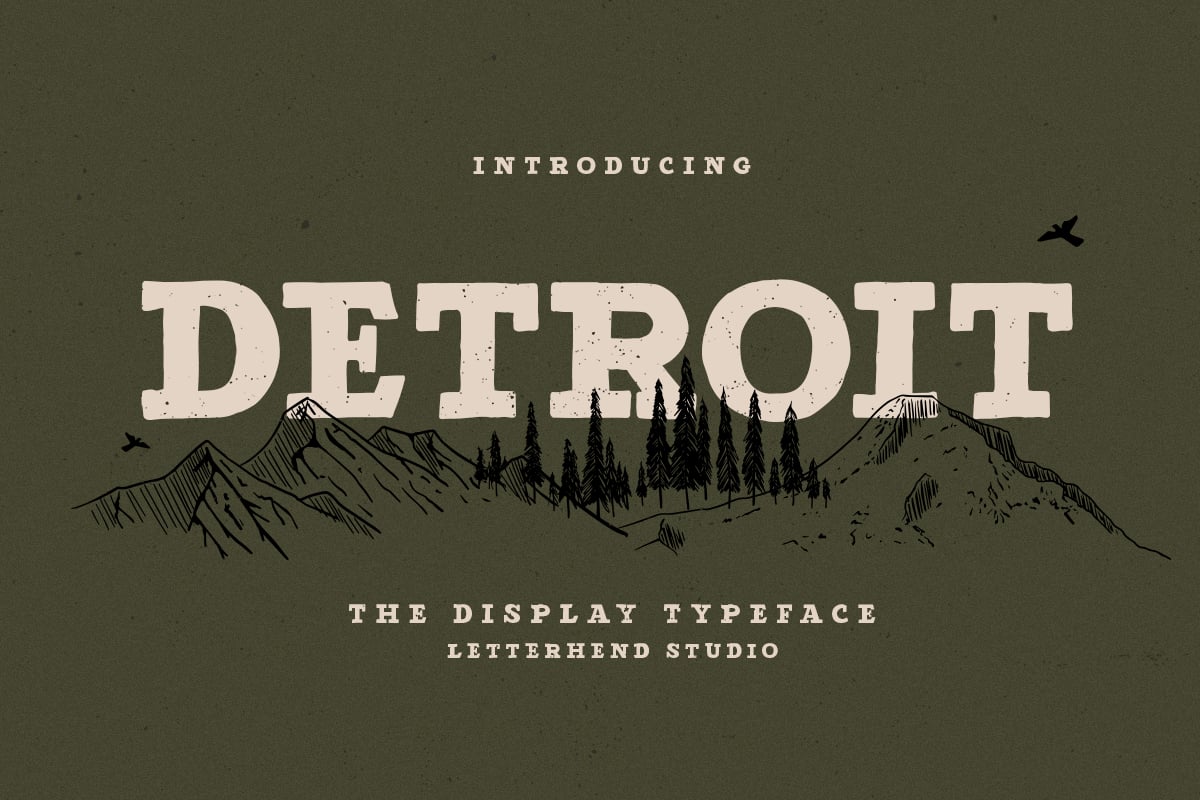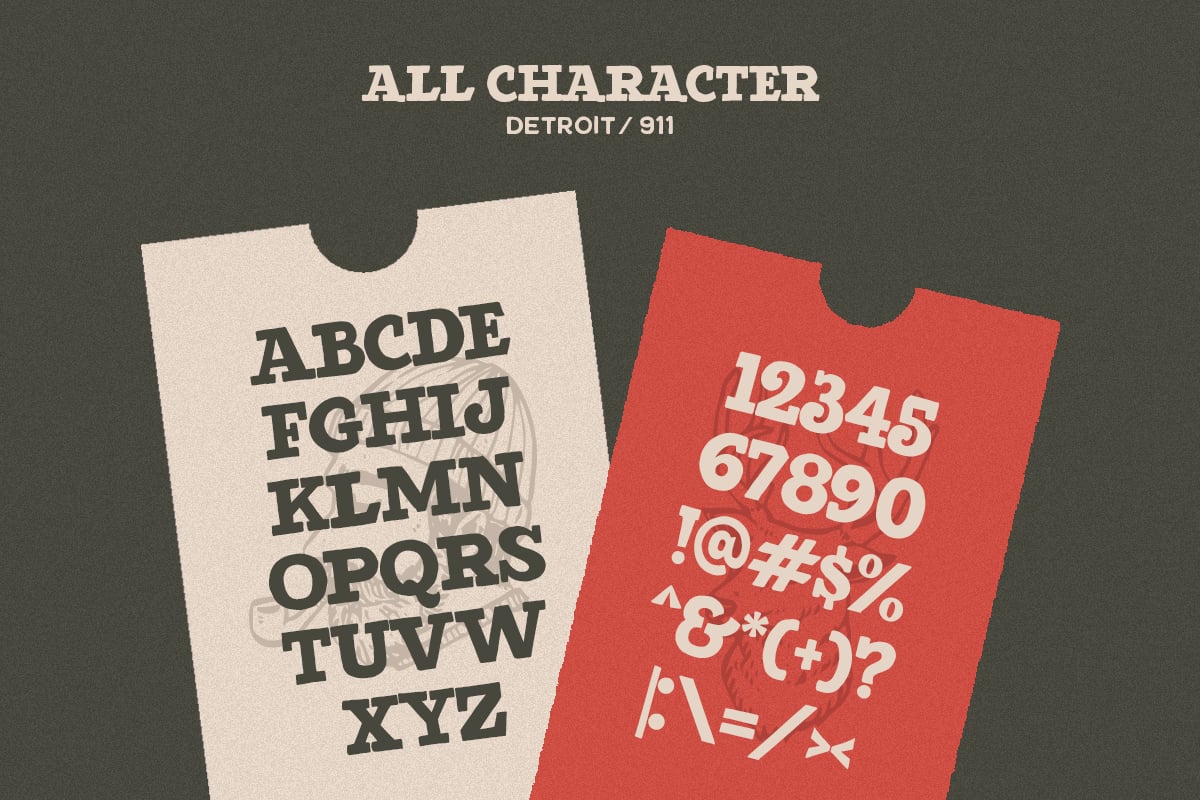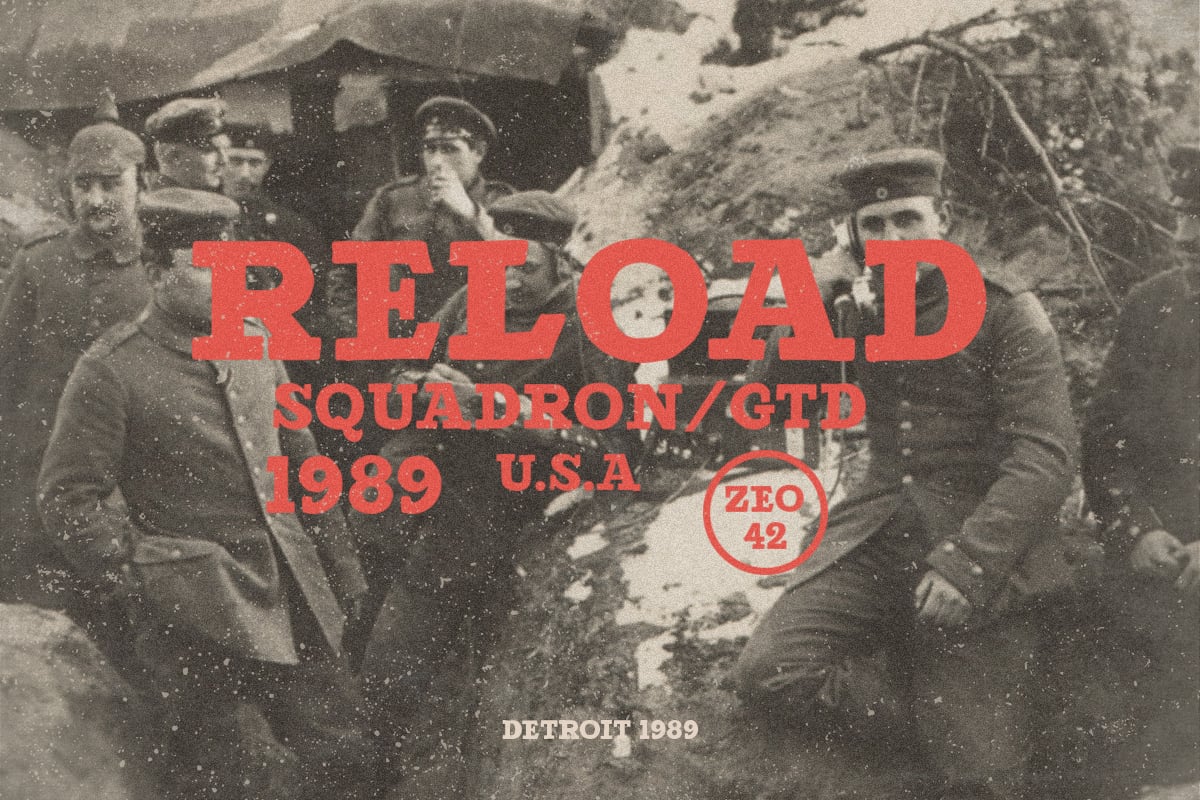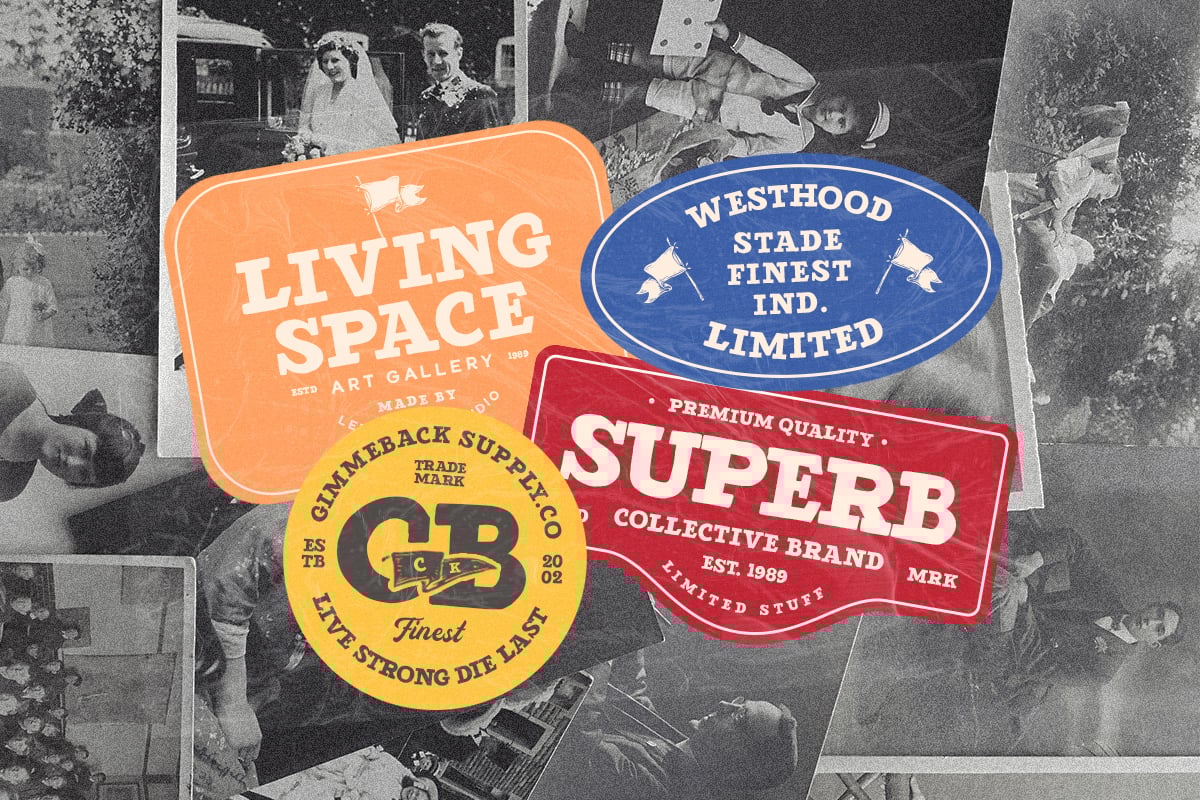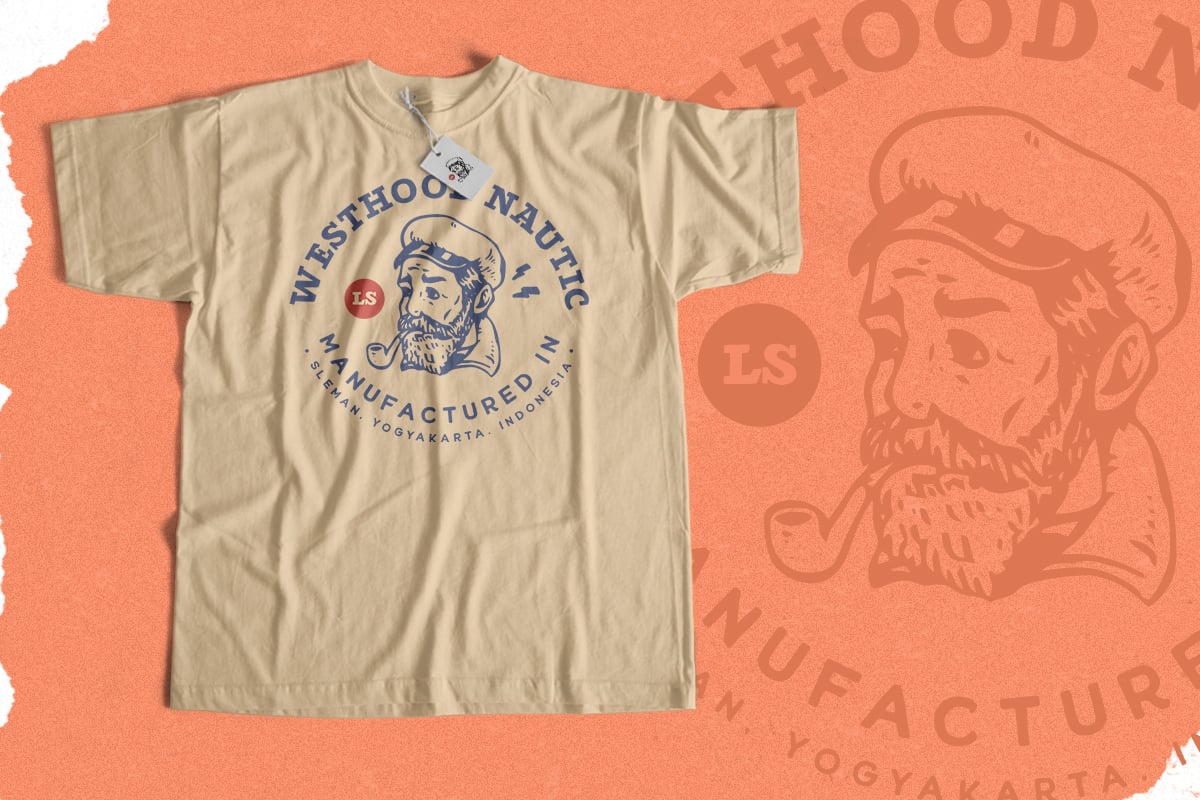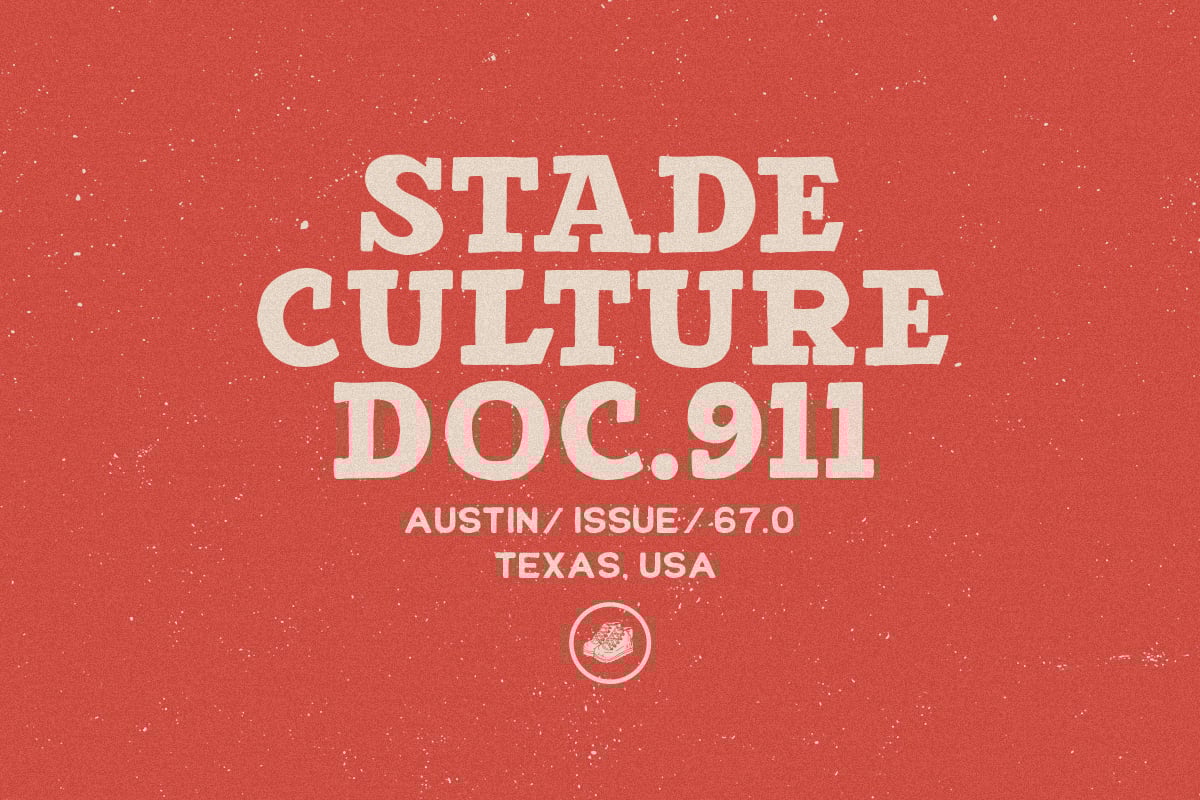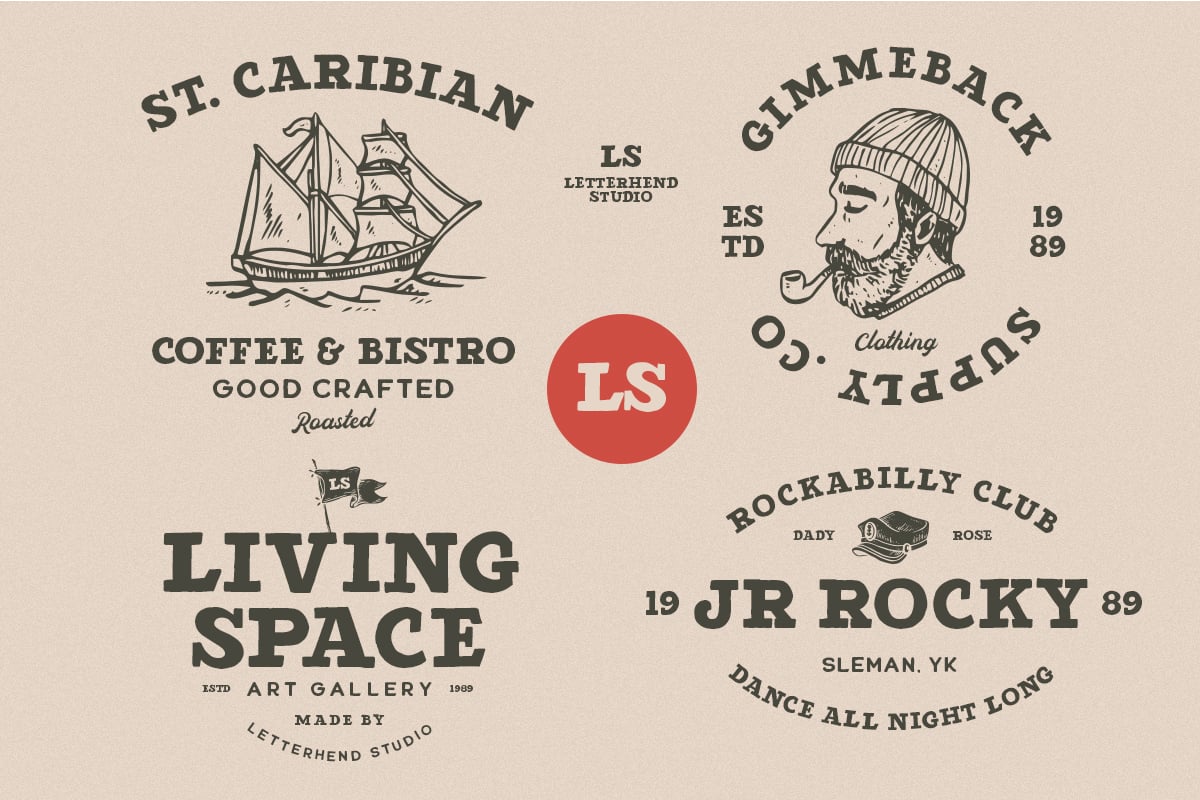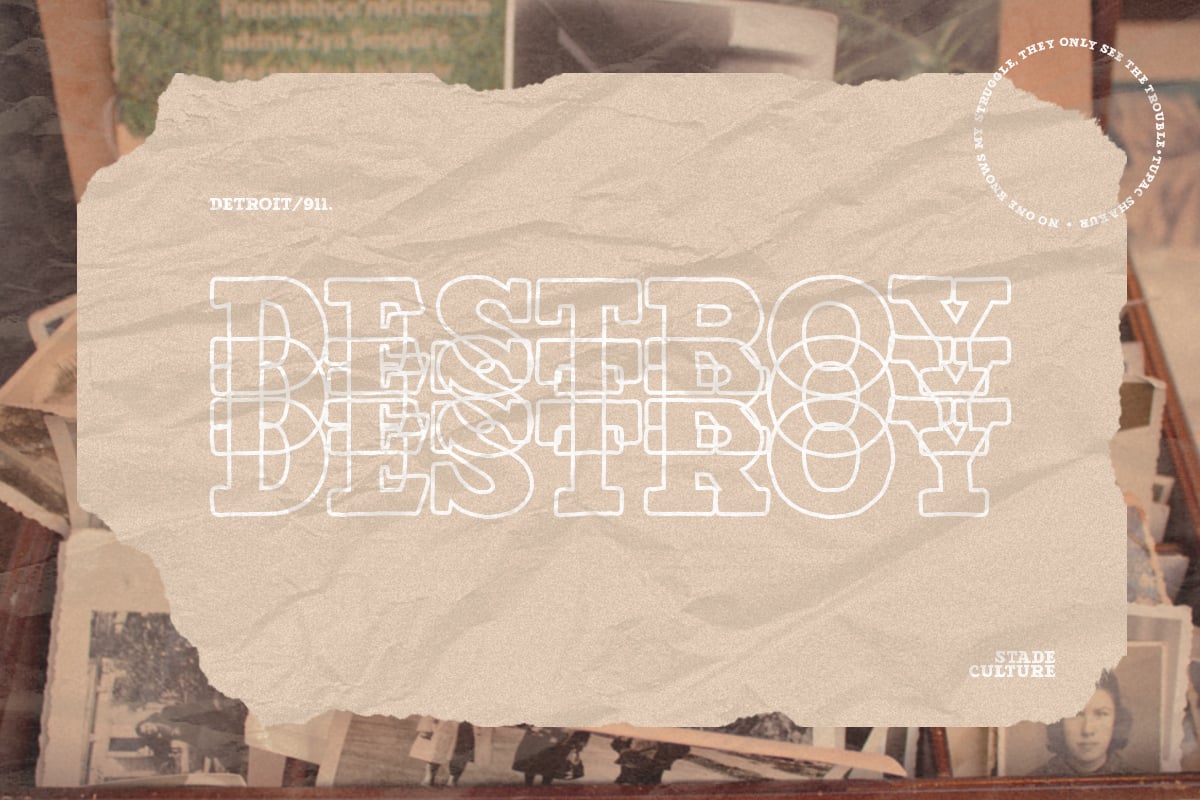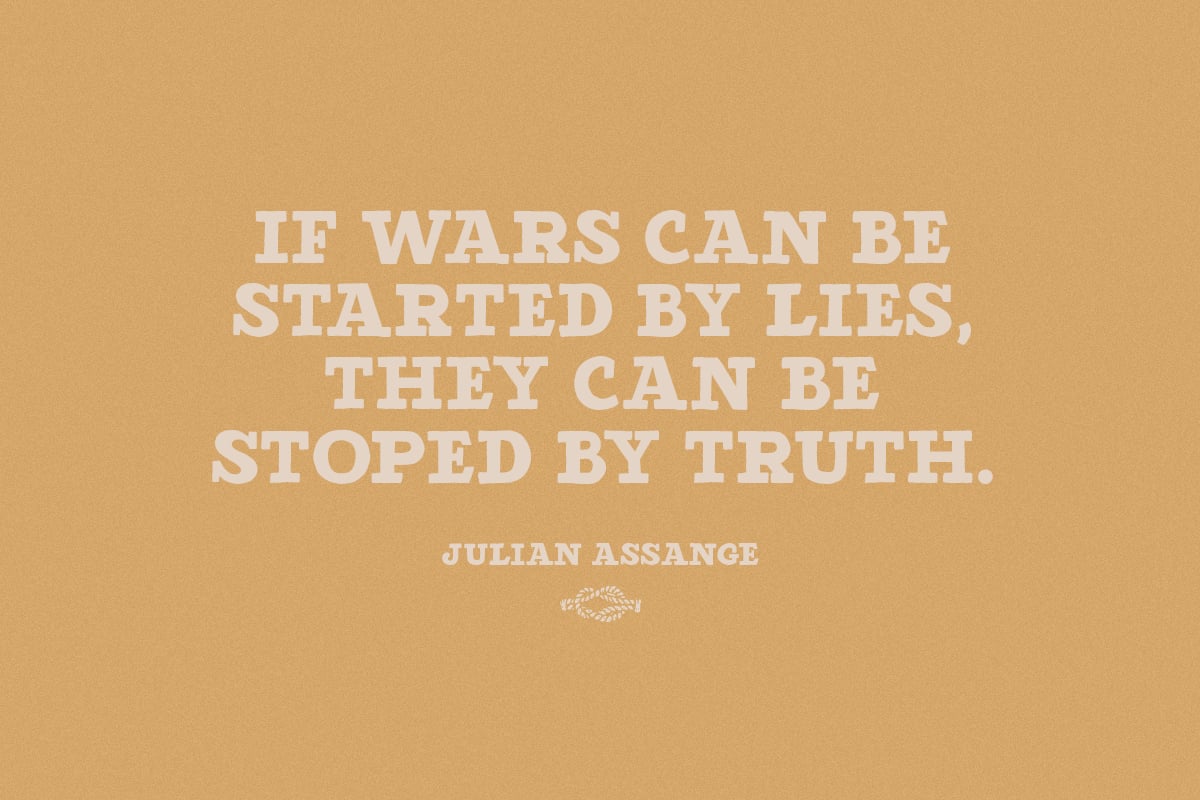
Detroit – Slab Serif Typeface
Introducing, Detroit – A Slab Serif Typeface. A display font that have a strong and bold looks. This font is made by hand lettering so it looks natural and very suitable for vintage and rustic theme. Perfectly made to be applied especially in logo, and the other various formal forms such as invitations, labels, logos, magazines, books, greeting / wedding cards, packaging, fashion, make up, stationery, novels, labels or any type of advertising purpose.